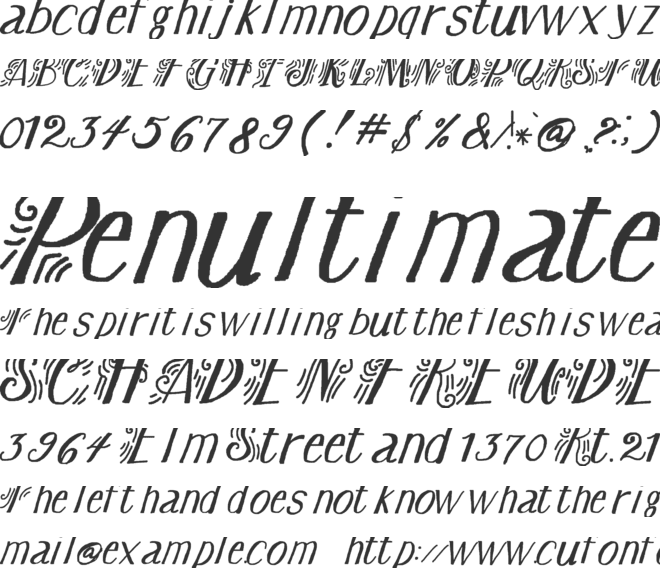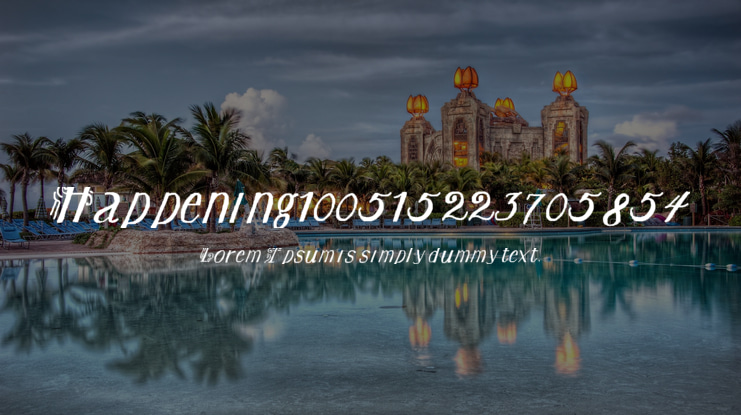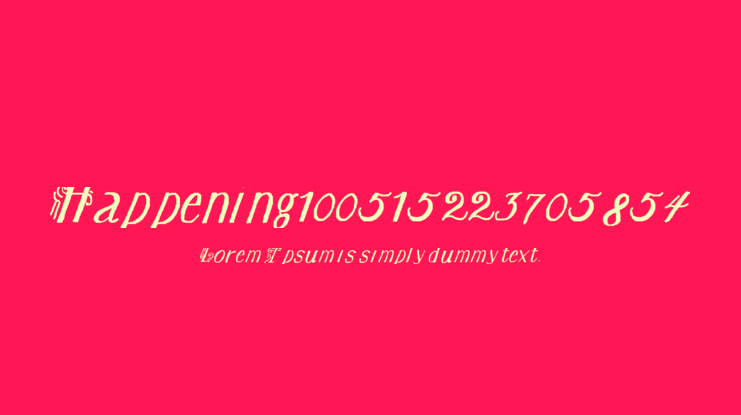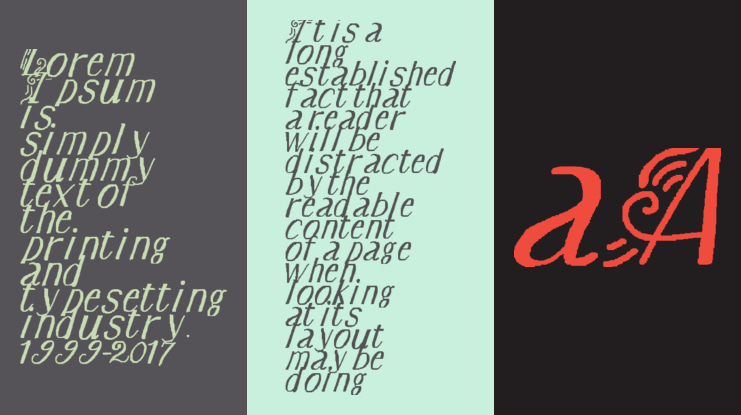
Happening100515223705854 Font
Fun and free to use for personal projects! The fancy part of this font are the caps so enjoy and do visit me at http://calej.blogspot.com for more freebies!